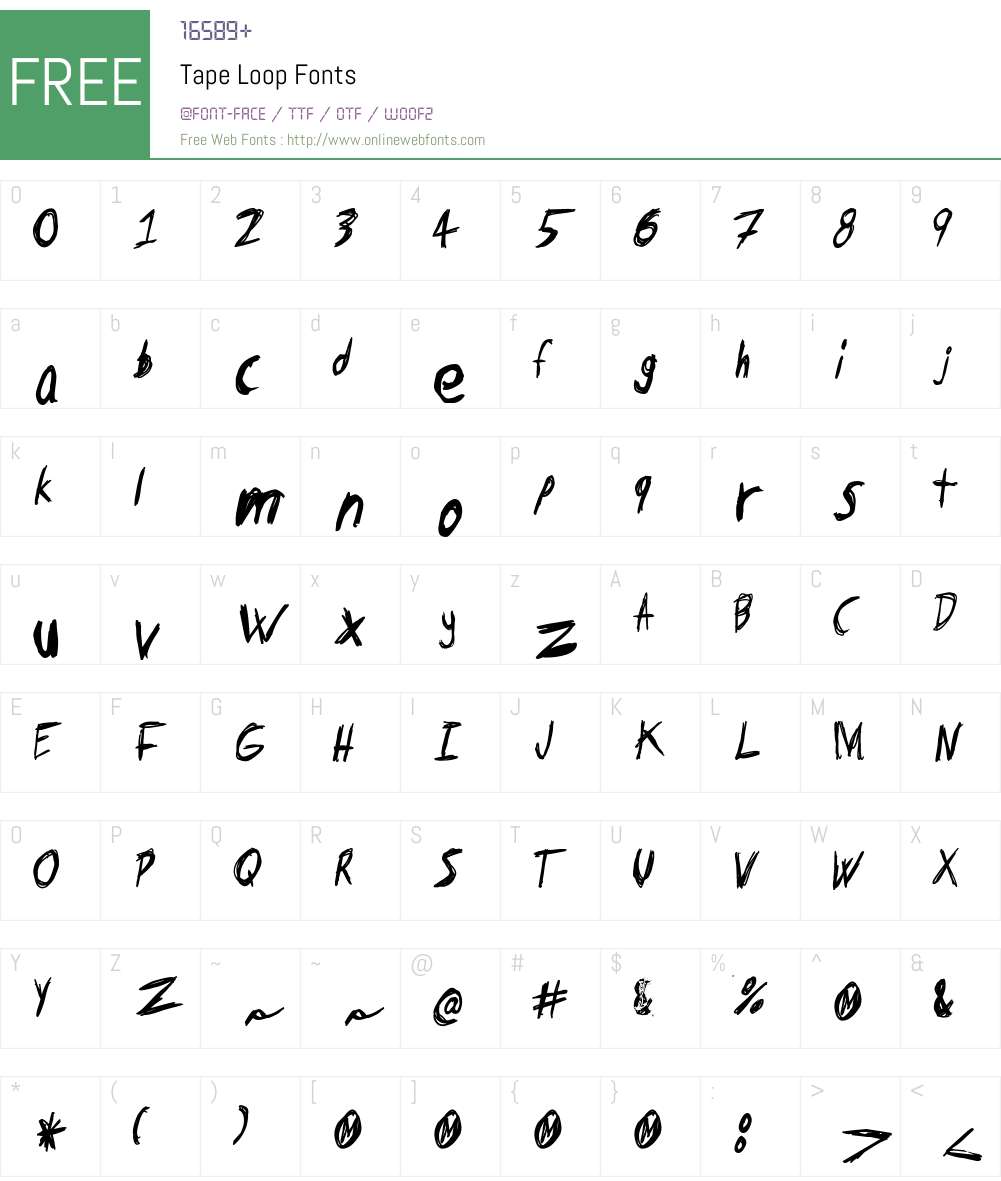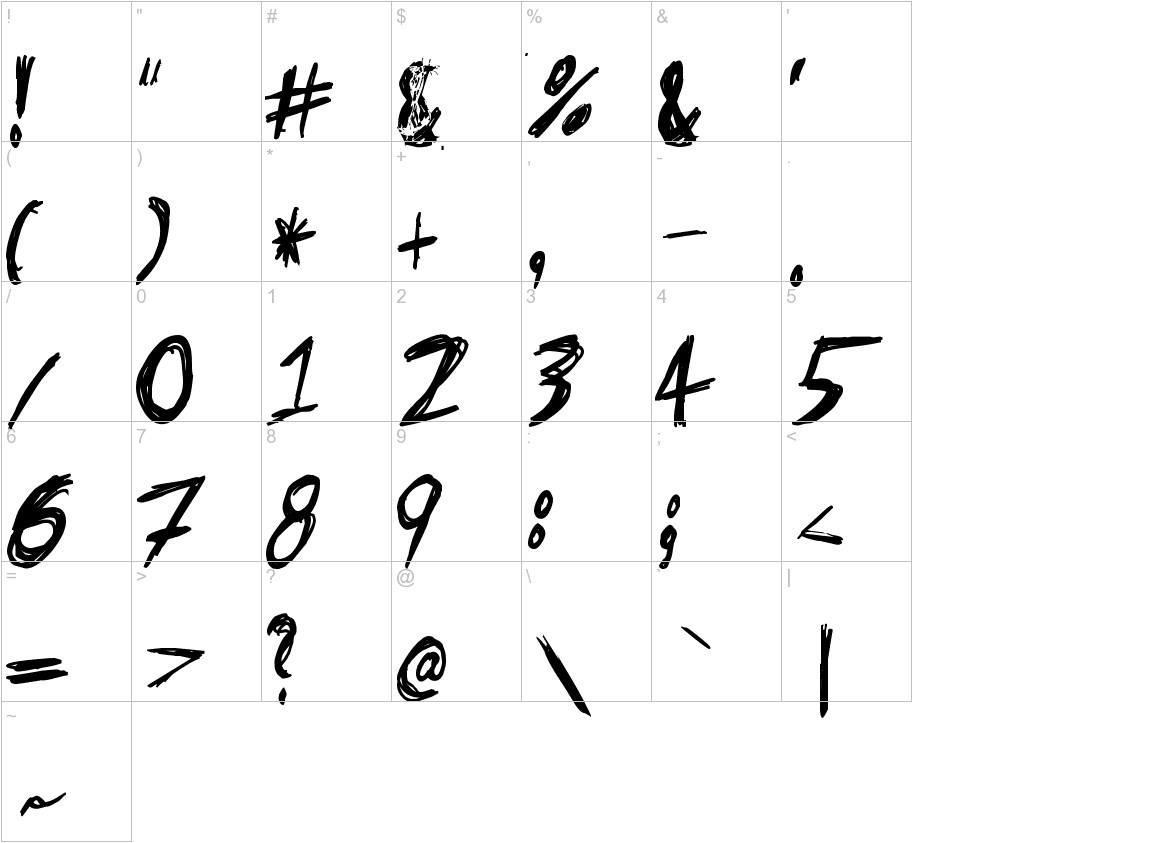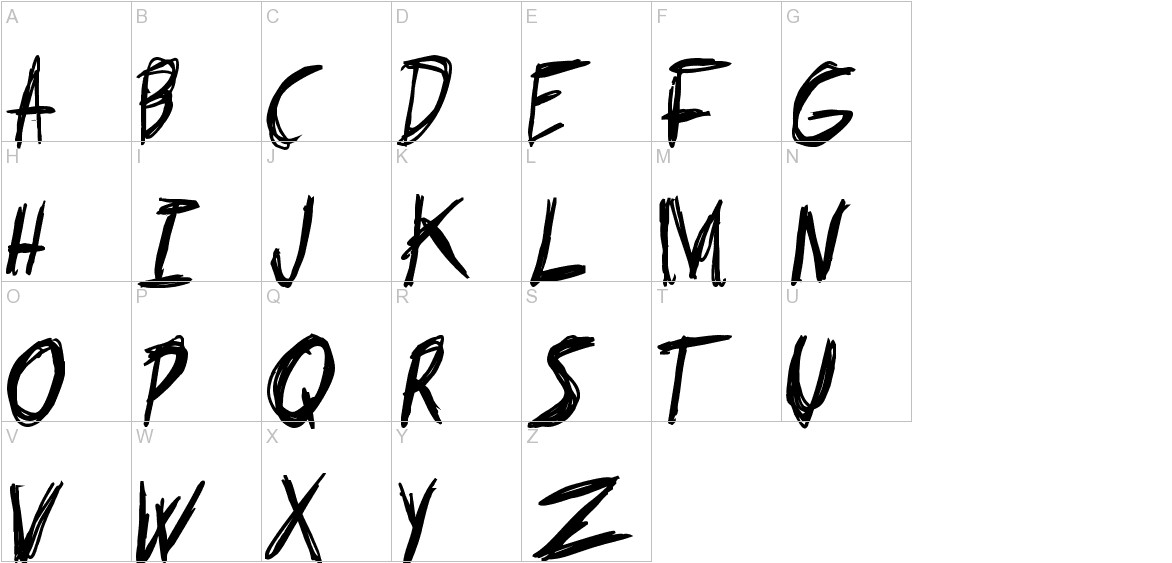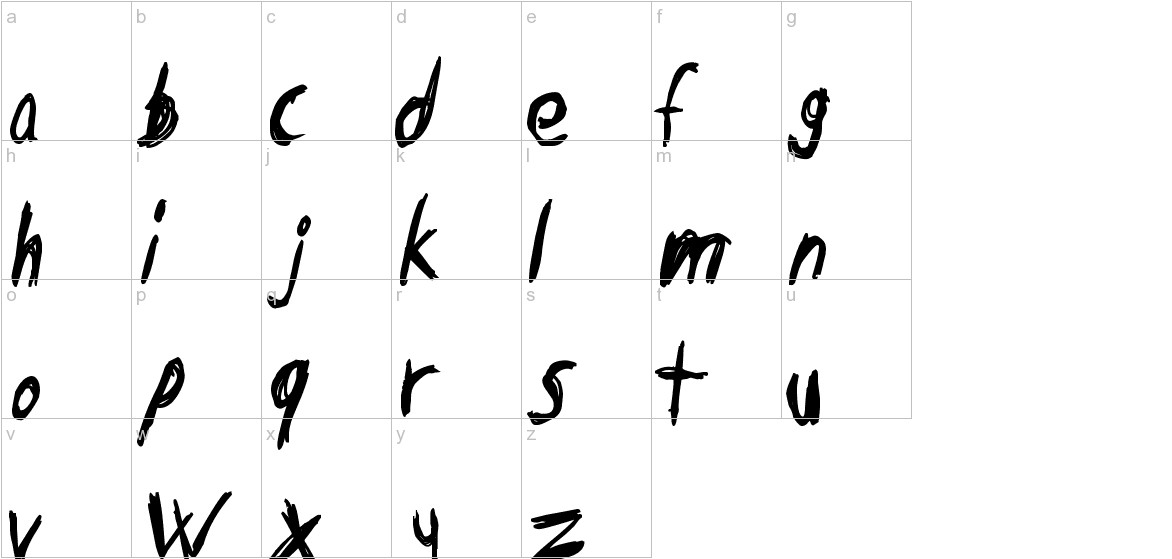
Tape Loop Font . File script name tapeloop.ttf download free for personal use. ️ customize your own preview on ffonts.net to make sure it`s the right. design amazing projects with tape loop typeface, learn about the full character set of tape loop, try online font to see letters,. the tape loop font contains 165 beautifully designed characters. Tape loop was developed marianfudge. tape loop font is a script, trash font designed by marianfudge. tape loop regular font by dafontfree. Tape loop font is free for both personel and commercial usages. tape loop is a font. The typeface contains 1 file and supports 12 languages. 28,186 downloads (5 yesterday) 100% free.
Tape loop font is free for both personel and commercial usages. File script name tapeloop.ttf download free for personal use. design amazing projects with tape loop typeface, learn about the full character set of tape loop, try online font to see letters,. 28,186 downloads (5 yesterday) 100% free. The typeface contains 1 file and supports 12 languages. Tape loop was developed marianfudge. the tape loop font contains 165 beautifully designed characters. ️ customize your own preview on ffonts.net to make sure it`s the right. tape loop font is a script, trash font designed by marianfudge. tape loop is a font.
Tape Loop Font ️ customize your own preview on ffonts.net to make sure it`s the right. design amazing projects with tape loop typeface, learn about the full character set of tape loop, try online font to see letters,. File script name tapeloop.ttf download free for personal use. tape loop font is a script, trash font designed by marianfudge. ️ customize your own preview on ffonts.net to make sure it`s the right. Tape loop was developed marianfudge. the tape loop font contains 165 beautifully designed characters. The typeface contains 1 file and supports 12 languages. 28,186 downloads (5 yesterday) 100% free. Tape loop font is free for both personel and commercial usages. tape loop regular font by dafontfree. tape loop is a font.
Tape Loop font by Marianfudge FontRiver Tape Loop Font ️ customize your own preview on ffonts.net to make sure it`s the right. tape loop font is a script, trash font designed by marianfudge. File script name tapeloop.ttf download free for personal use. Tape loop font is free for both personel and commercial usages. The typeface contains 1 file and supports 12 languages. tape loop regular font by. Tape Loop Font.
Download free Tape Loop Regular font TAPELOOP.TTF Tape Loop Font design amazing projects with tape loop typeface, learn about the full character set of tape loop, try online font to see letters,. tape loop regular font by dafontfree. The typeface contains 1 file and supports 12 languages. File script name tapeloop.ttf download free for personal use. tape loop is a font. tape loop font is a. Tape Loop Font.
Duct Tape Font on Yellow Images Creative Store Tape Loop Font The typeface contains 1 file and supports 12 languages. the tape loop font contains 165 beautifully designed characters. tape loop font is a script, trash font designed by marianfudge. ️ customize your own preview on ffonts.net to make sure it`s the right. 28,186 downloads (5 yesterday) 100% free. tape loop is a font. Tape loop was developed. Tape Loop Font.
Tape Loop Font Tape loop was developed marianfudge. design amazing projects with tape loop typeface, learn about the full character set of tape loop, try online font to see letters,. tape loop is a font. File script name tapeloop.ttf download free for personal use. the tape loop font contains 165 beautifully designed characters. tape loop regular font by dafontfree.. Tape Loop Font.
Tape Loop Font Download Free for Desktop & font Tape Loop Font File script name tapeloop.ttf download free for personal use. design amazing projects with tape loop typeface, learn about the full character set of tape loop, try online font to see letters,. tape loop font is a script, trash font designed by marianfudge. the tape loop font contains 165 beautifully designed characters. Tape loop was developed marianfudge. The. Tape Loop Font.
Tape Loop font , Script Trash fonts Tape Loop Font 28,186 downloads (5 yesterday) 100% free. design amazing projects with tape loop typeface, learn about the full character set of tape loop, try online font to see letters,. tape loop regular font by dafontfree. the tape loop font contains 165 beautifully designed characters. File script name tapeloop.ttf download free for personal use. ️ customize your own preview. Tape Loop Font.
Tape Loop font by Marianfudge FontRiver Tape Loop Font Tape loop font is free for both personel and commercial usages. 28,186 downloads (5 yesterday) 100% free. ️ customize your own preview on ffonts.net to make sure it`s the right. Tape loop was developed marianfudge. the tape loop font contains 165 beautifully designed characters. tape loop font is a script, trash font designed by marianfudge. tape loop. Tape Loop Font.
Tape Black Font Handmadefont Typography inspiration, Graphic design Tape Loop Font tape loop regular font by dafontfree. the tape loop font contains 165 beautifully designed characters. design amazing projects with tape loop typeface, learn about the full character set of tape loop, try online font to see letters,. Tape loop was developed marianfudge. Tape loop font is free for both personel and commercial usages. tape loop font. Tape Loop Font.
Tape Loop Font 28,186 downloads (5 yesterday) 100% free. ️ customize your own preview on ffonts.net to make sure it`s the right. tape loop is a font. The typeface contains 1 file and supports 12 languages. the tape loop font contains 165 beautifully designed characters. File script name tapeloop.ttf download free for personal use. tape loop regular font by dafontfree.. Tape Loop Font.
Tape Loop Font download free Tape Loop Font tape loop font is a script, trash font designed by marianfudge. tape loop is a font. File script name tapeloop.ttf download free for personal use. Tape loop was developed marianfudge. the tape loop font contains 165 beautifully designed characters. 28,186 downloads (5 yesterday) 100% free. Tape loop font is free for both personel and commercial usages. . Tape Loop Font.